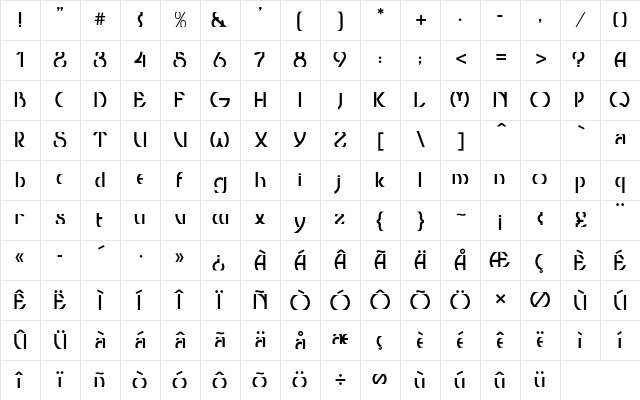
ThresholdCP Regular
Foundry: Claude P.
Design Context for ThresholdCP
ThresholdCP is a composed and adaptable typeface that performs quietly and consistently across a wide range of design contexts.